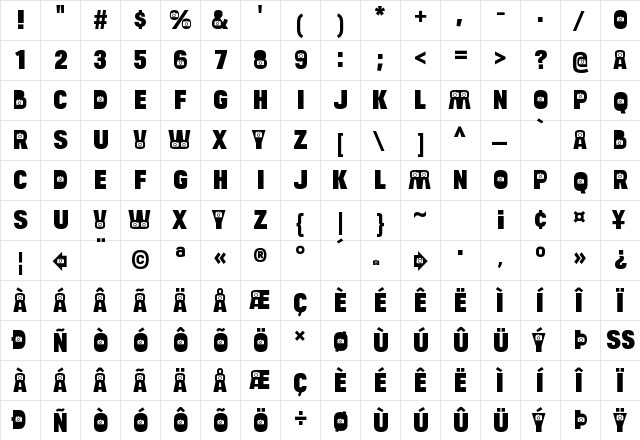
Bulltoad Camera Regular
Design Context for Bulltoad Camera Typeface
Bulltoad Camera is a composed and adaptable typeface that performs quietly and consistently across a wide range of design contexts.